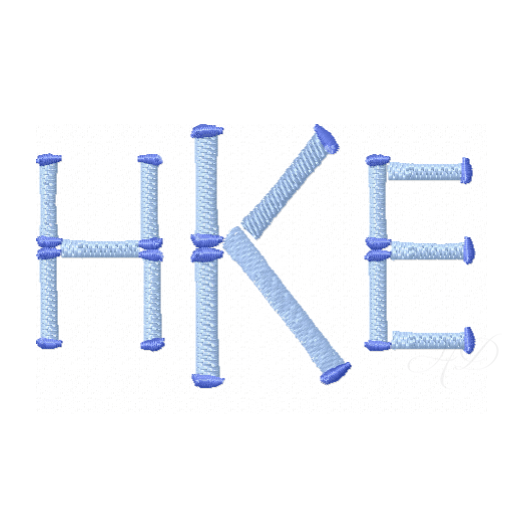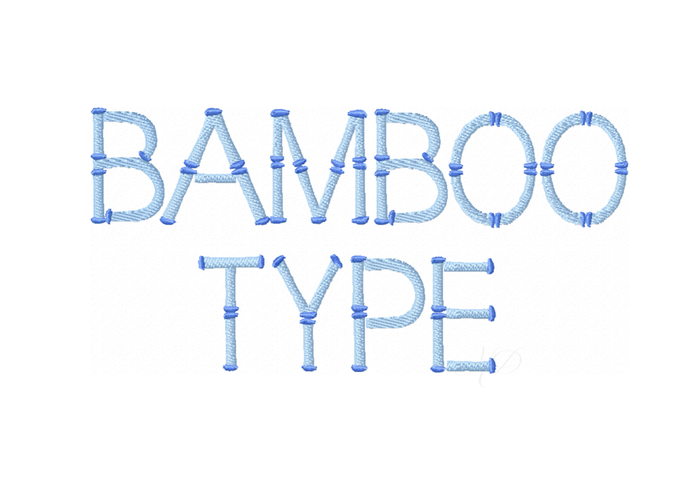
Bamboo Fill Small Embroidery Font
Unleash your creativity with the Bamboo Fill Small Embroidery Font, a versatile two-color embroidery font featuring both fill and contrasting satin stitches. This beautiful font is perfect for personalizing gifts, home decor, and more.